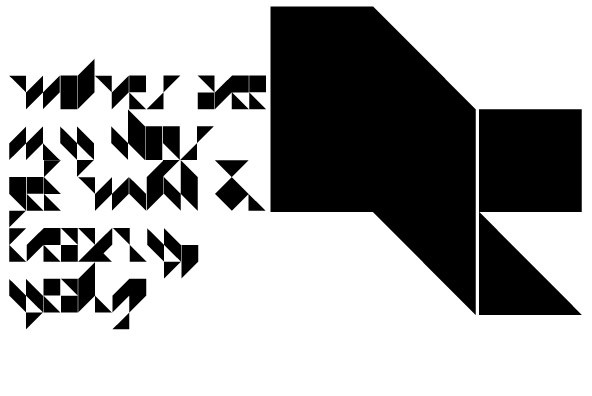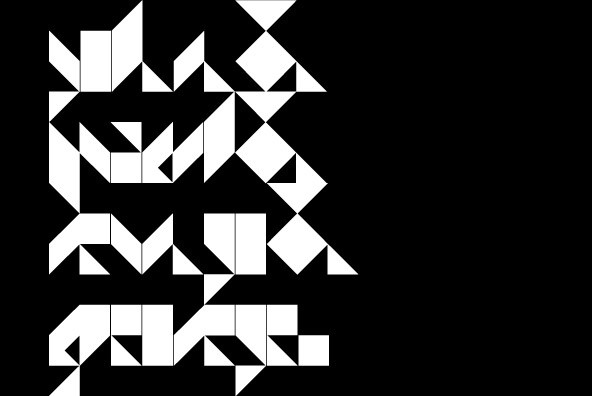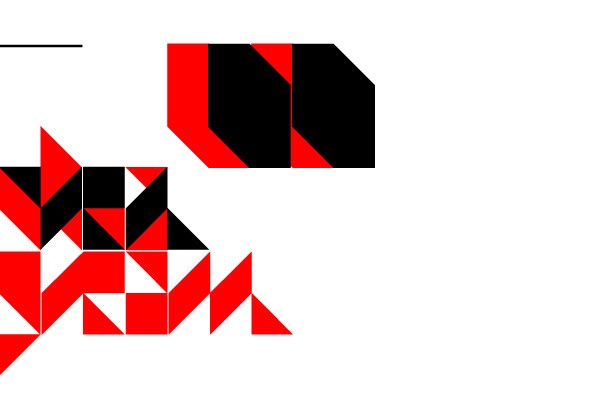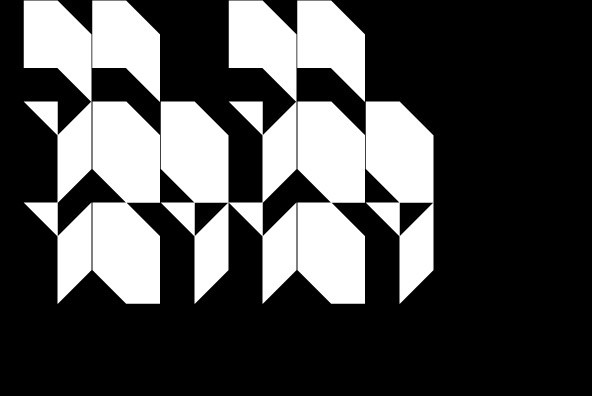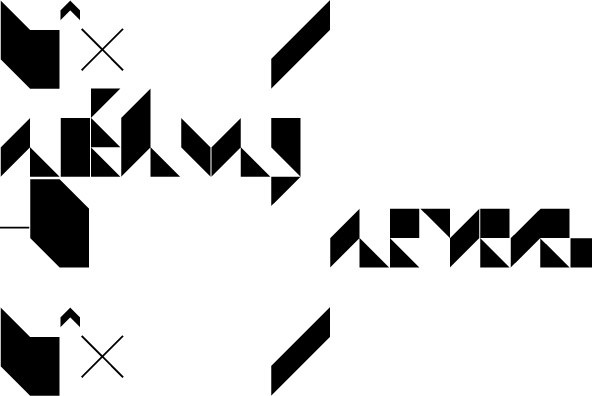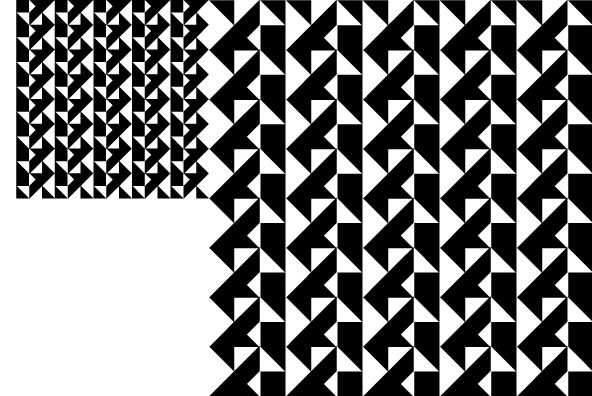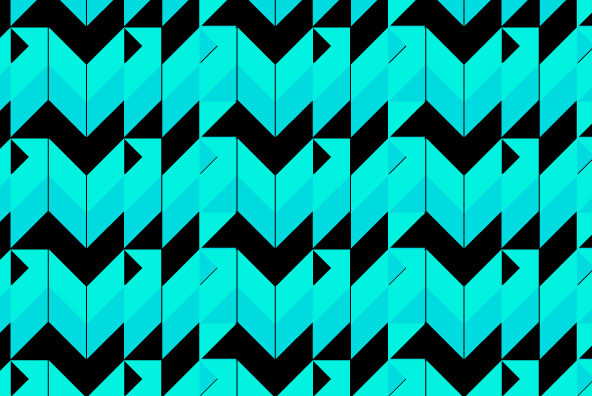
Quick 16
Foundry: Suprb
Angular and aloof, Aztec patter, alien ornament. Quick16 is playful and geometric typeface inspired by the art exhibition posters from the 80's. Decorative and unreadable. Its solid forms are great for bold and rigid blocks of text. A massive title display case.